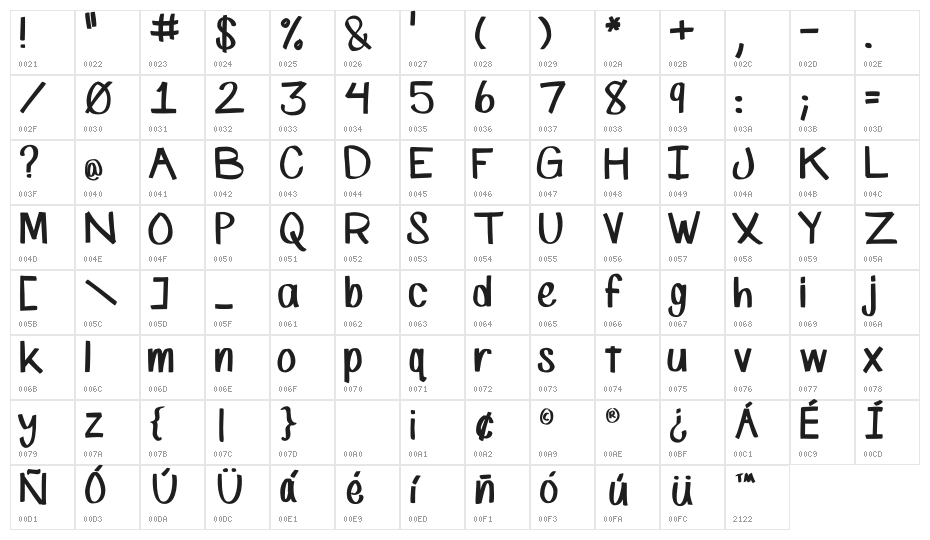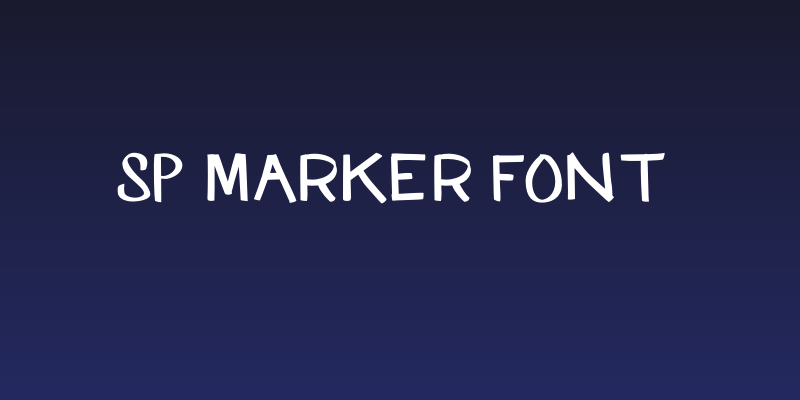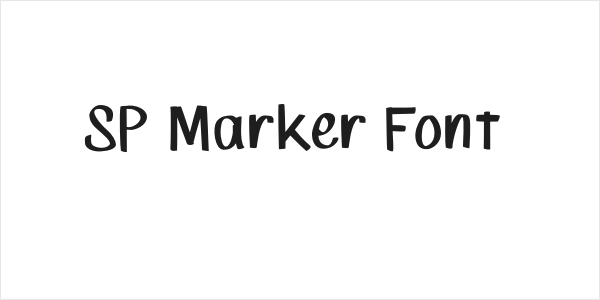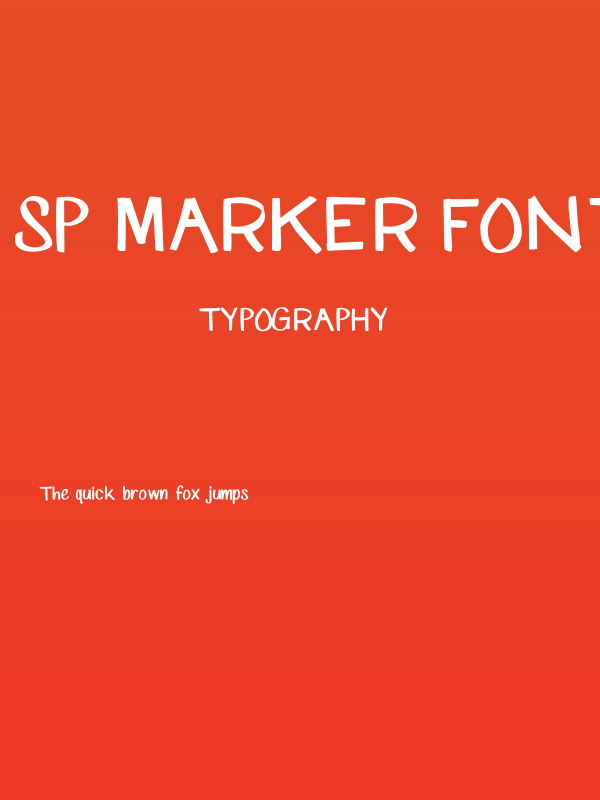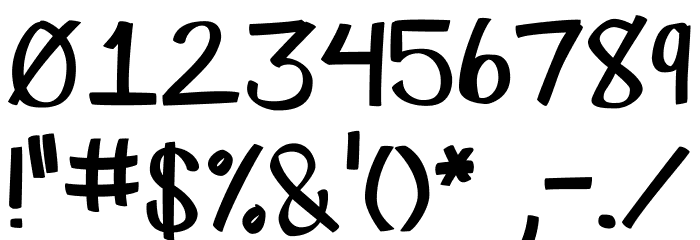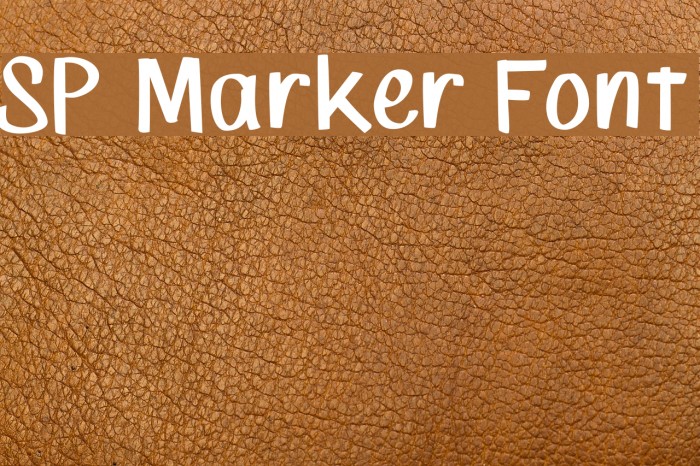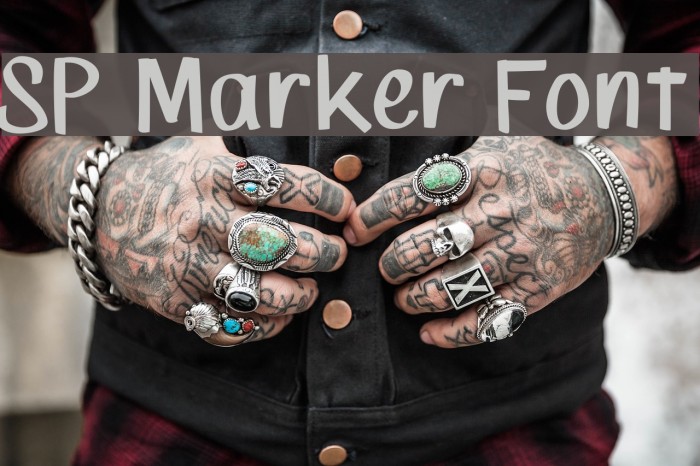
SP Marker Font Font
SP Marker Font Description
This font features a playful and casual handwritten style, reminiscent of marker pen strokes. The characters are bold and slightly irregular, giving a lively and informal appearance. The uppercase letters are tall and slightly narrow, while the lowercase letters maintain a consistent height, adding to the font's approachable feel. Numbers and special characters are crafted with the same playful touch, ensuring uniformity across all elements. The font's design is ideal for projects that require a personal and friendly tone, such as children's books, casual invitations, or creative branding.
| Overall Style | Casual |
| Use Case | Headlines, Logos, Informal Text |
| Proposed Projects | Ideal for children's books, casual invitations, creative branding, and playful designs. |